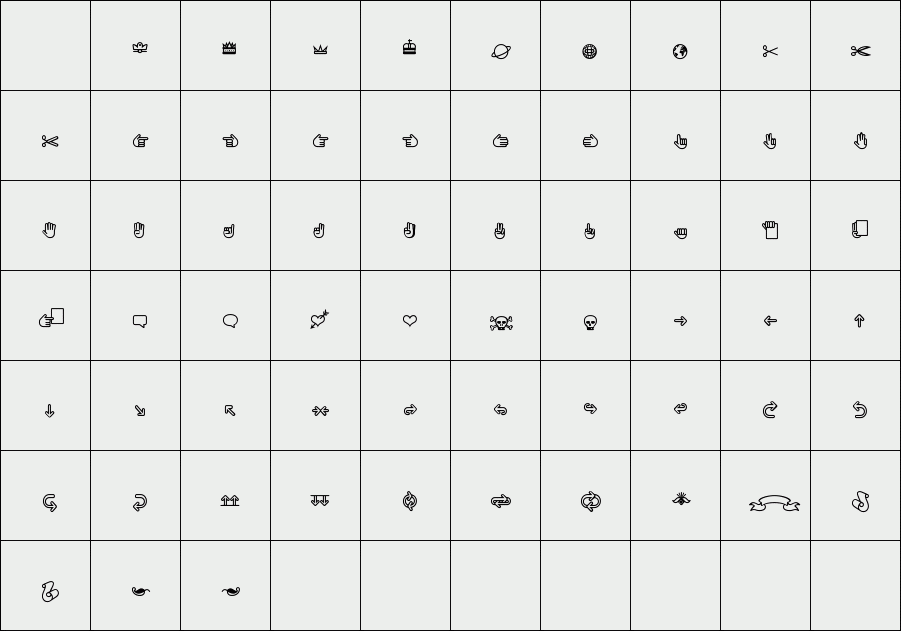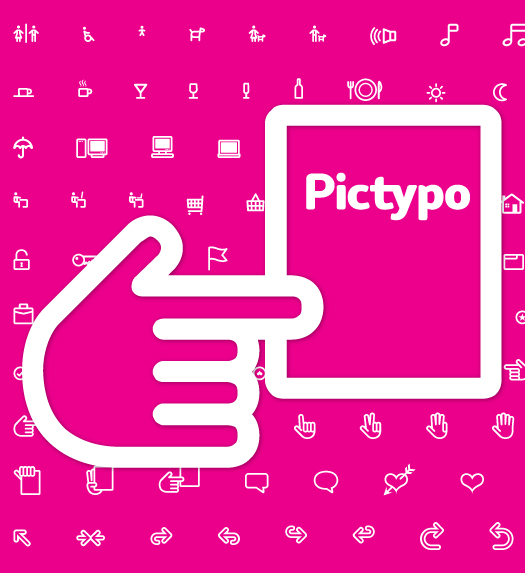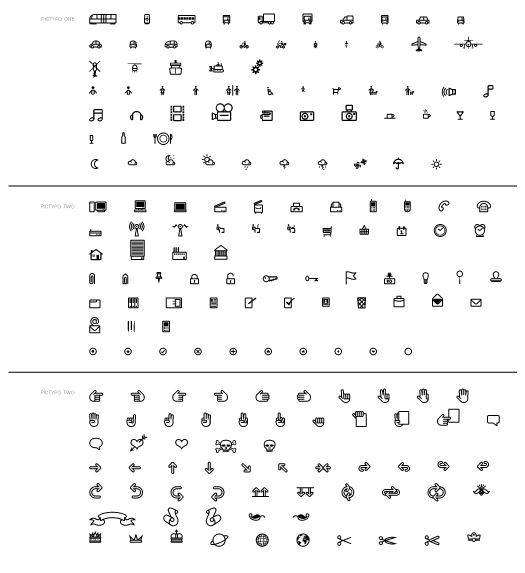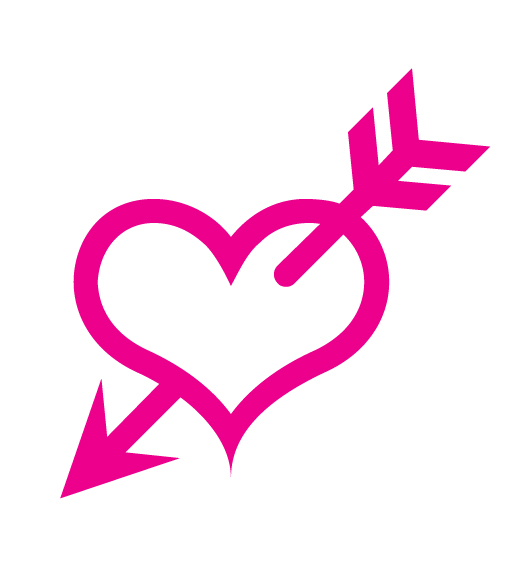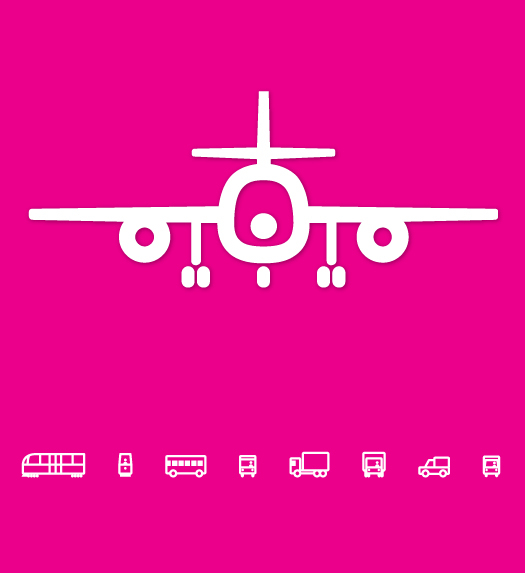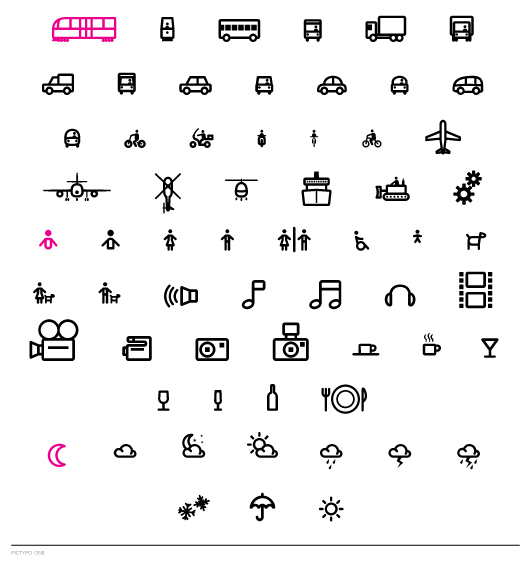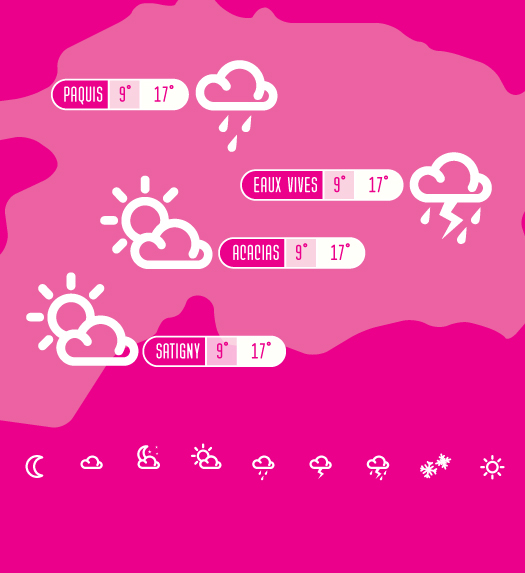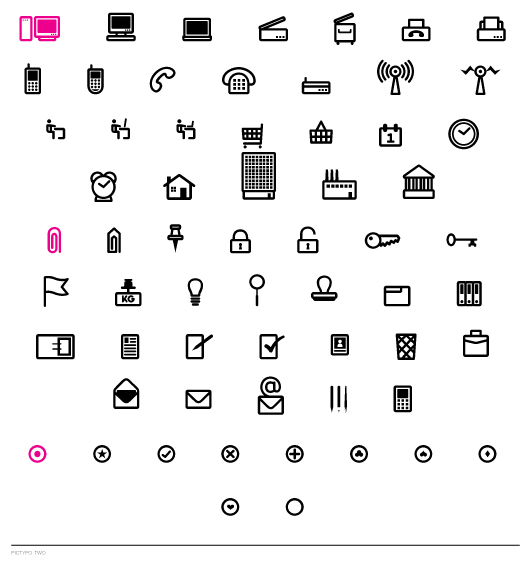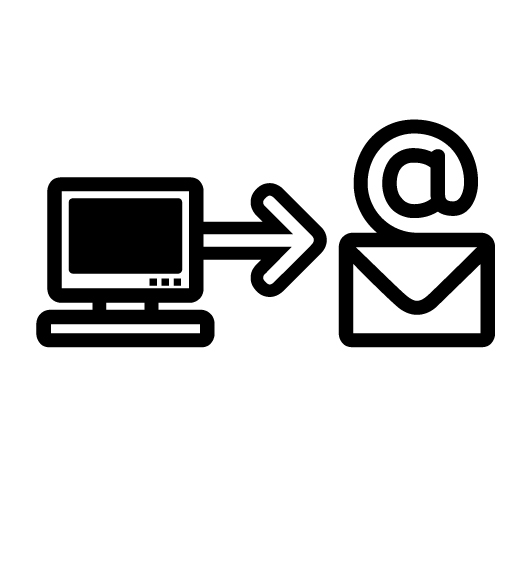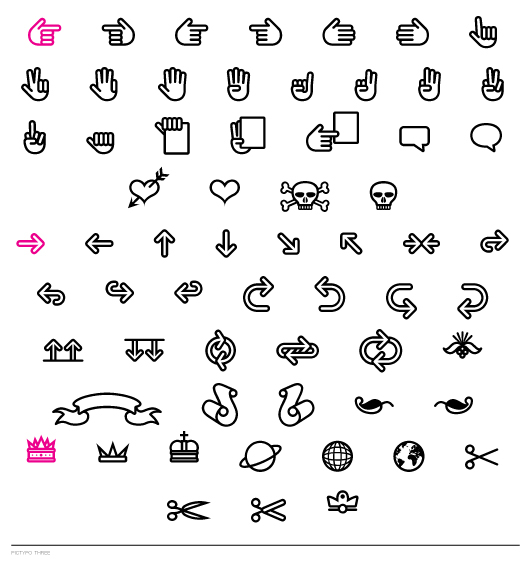
Pictypo
/ Pictypo three
Pictypo is a functional set of dingbat fonts, created with an open, rounded style, that contains a large range of symbols, from the usual arrows, to weather or office icons or mobility vehicules.